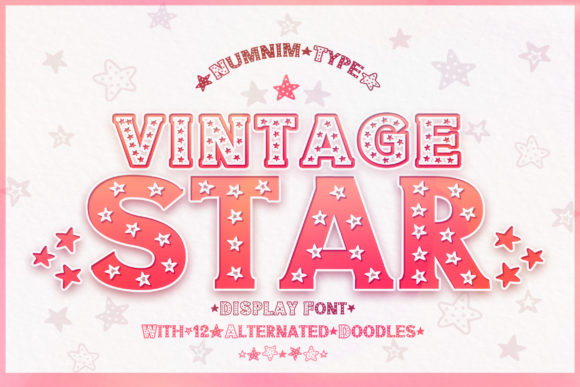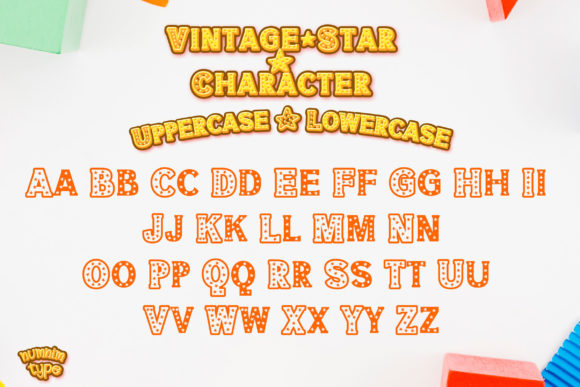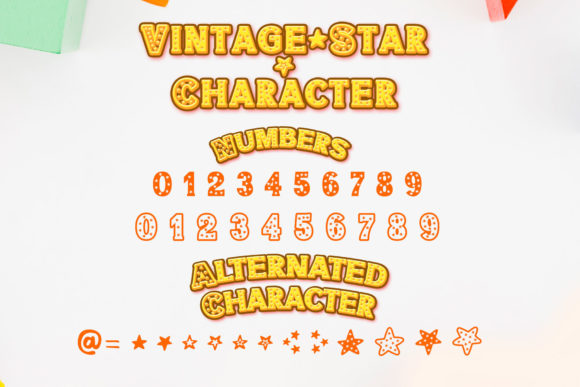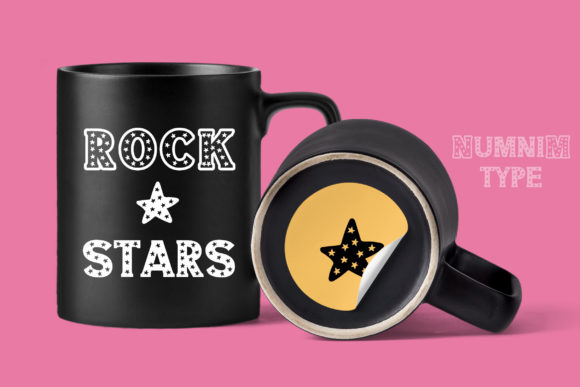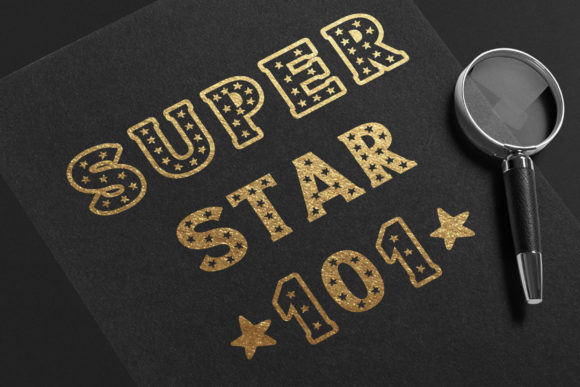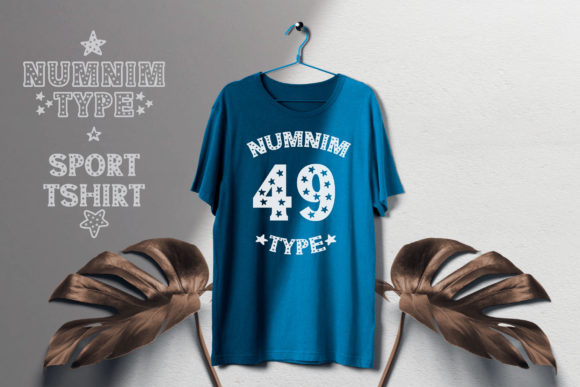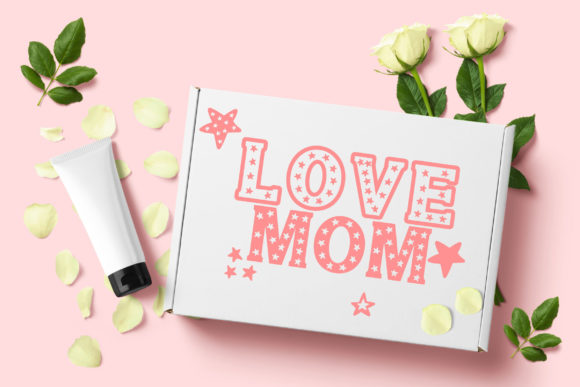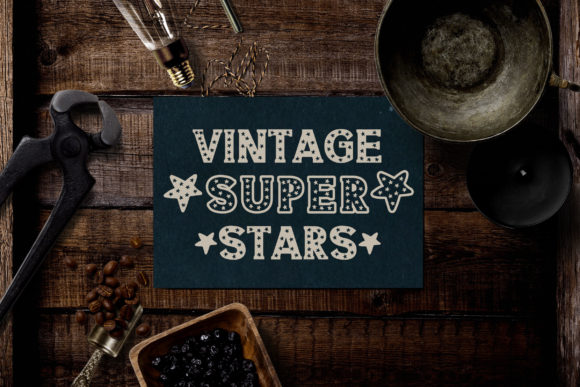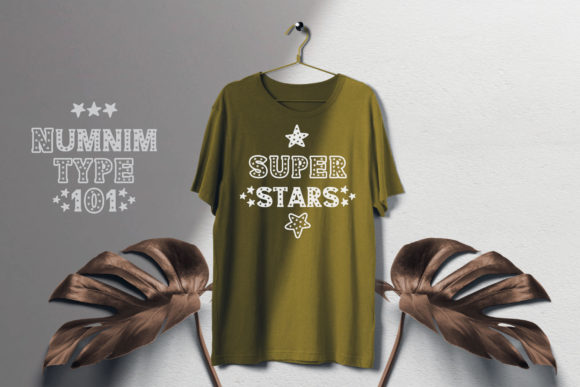
Vintage Star Font
Vintage Star is a cool star lettered display font, this font will truly inspire each of your works. Use this font for any crafting project that requires a personalized vintage look!